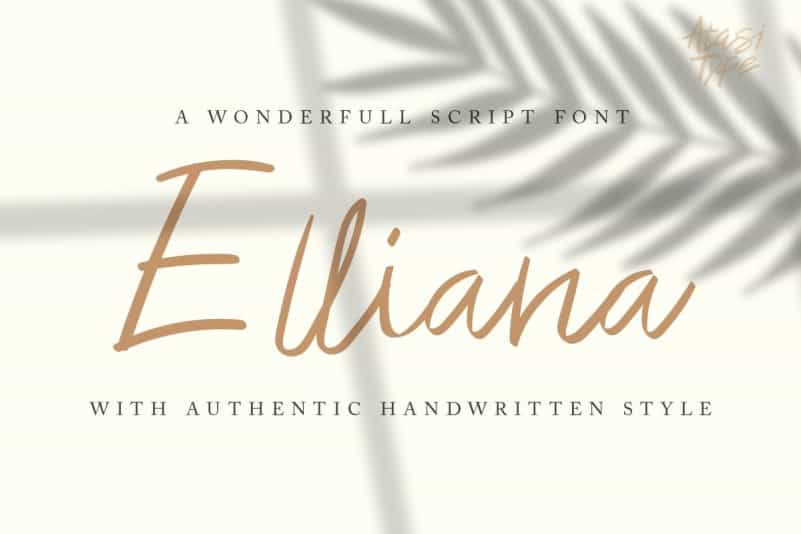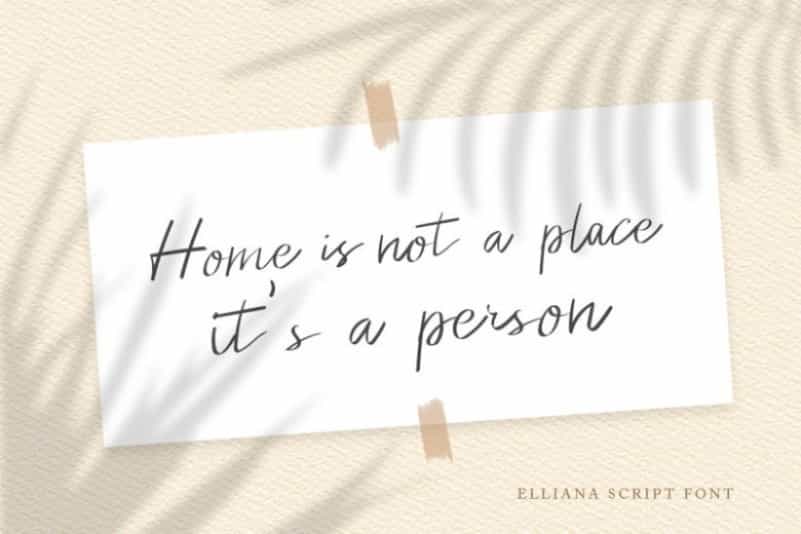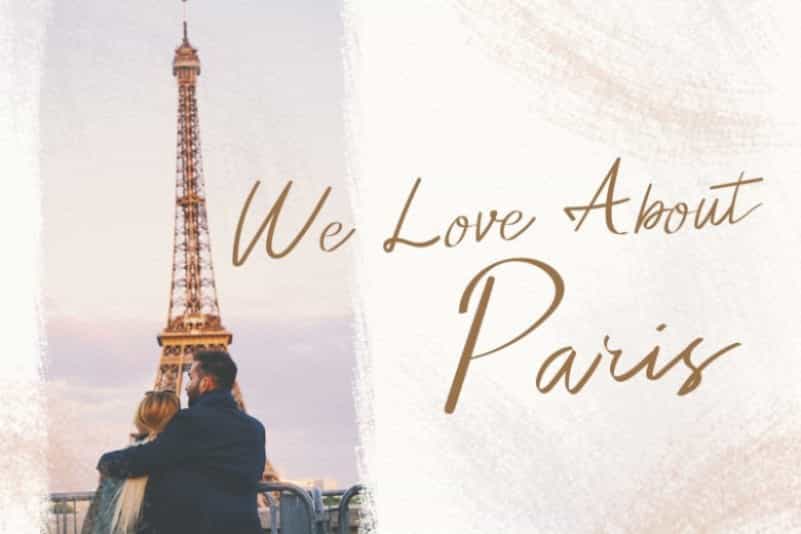
Elliana Font is a fresh and elegant Signature font that is designed to fulfill your need to create a beautiful design, this font is perfect for you, it is suitable for logotype, headline, apparel, branding, invitation, thumbnail video, etc.